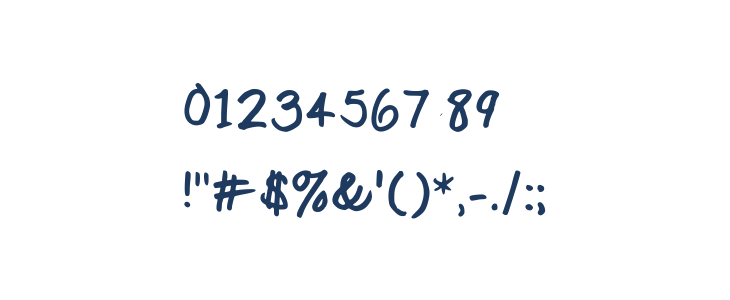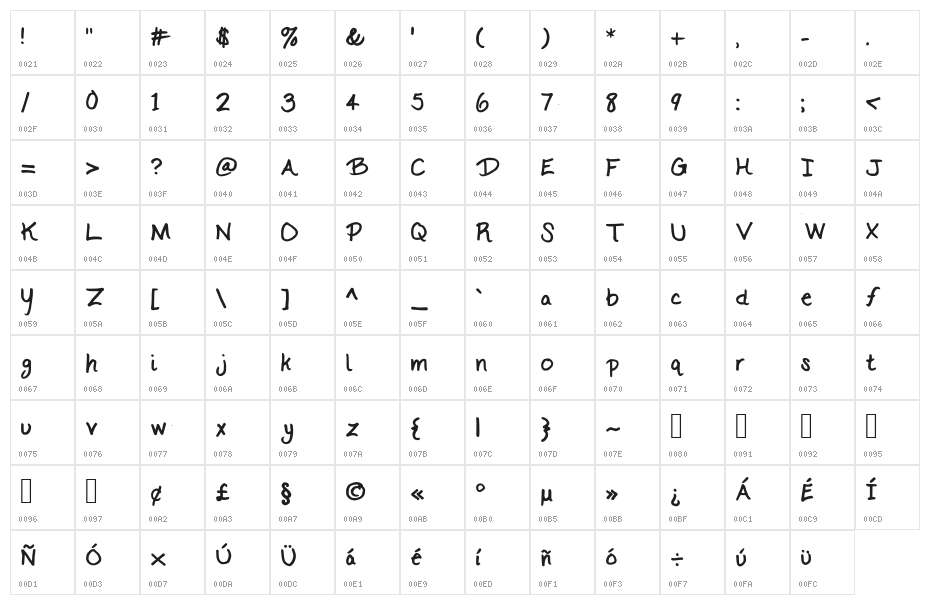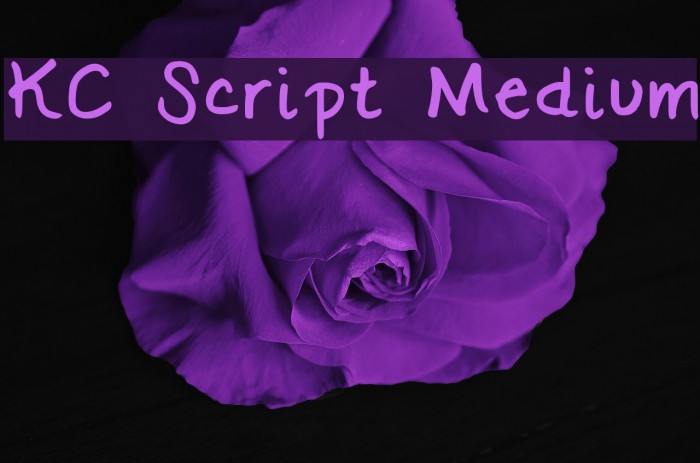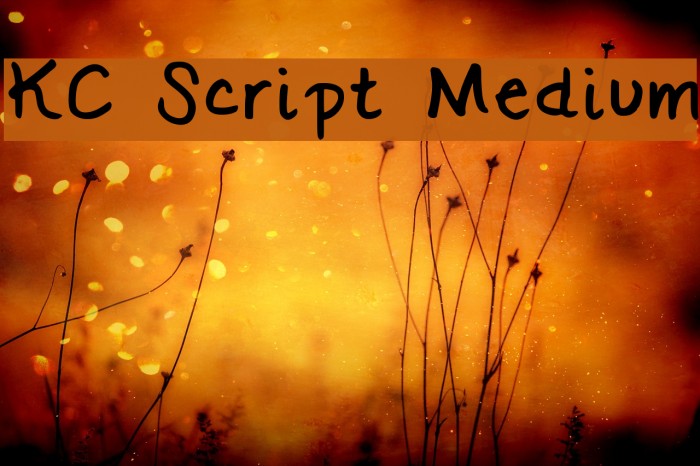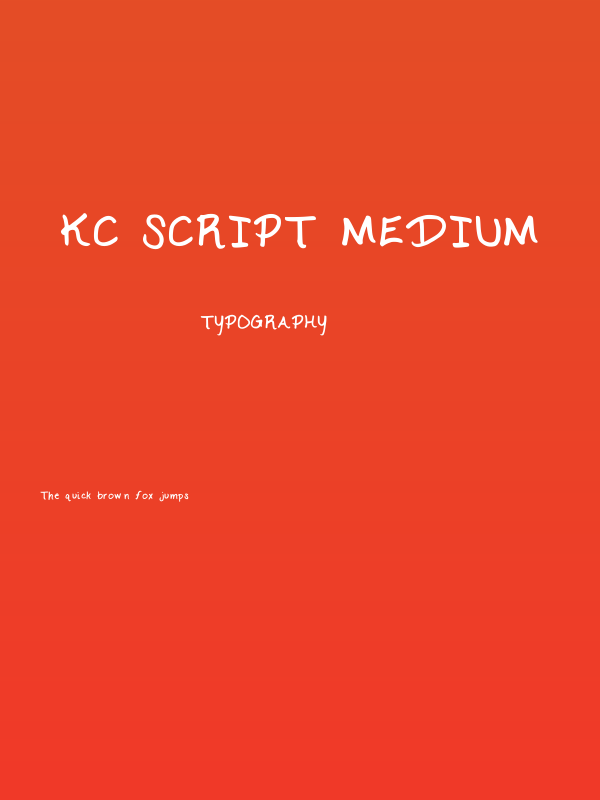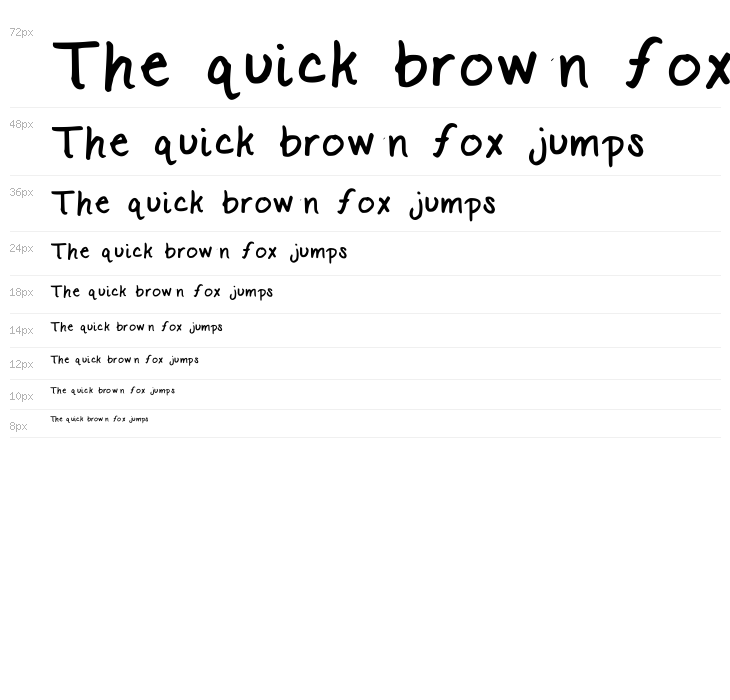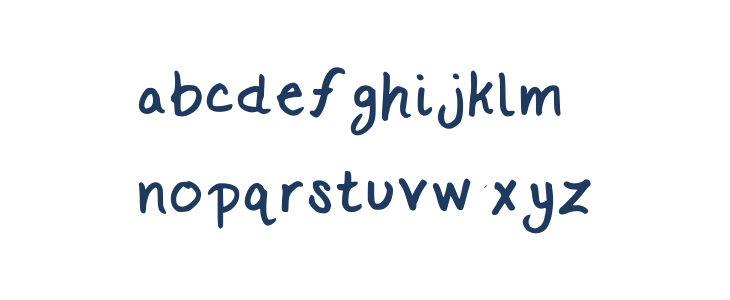
KC Script Medium Font
KC Script Medium Description
This font features a playful and casual script style, characterized by its smooth, flowing strokes and slightly irregular shapes that give it a handwritten feel. The uppercase letters are bold and rounded, while the lowercase letters maintain a consistent flow with gentle curves. The numerals are clear and legible, matching the overall style of the alphabet. Special characters are well-integrated, maintaining the font's cohesive look. This font exudes a friendly and approachable vibe, making it suitable for informal and creative projects.
| Proposed Projects | Ideal for greeting cards, invitations, personal branding, and creative projects that require a friendly and informal touch. |